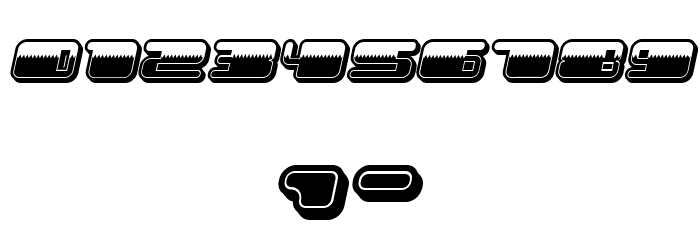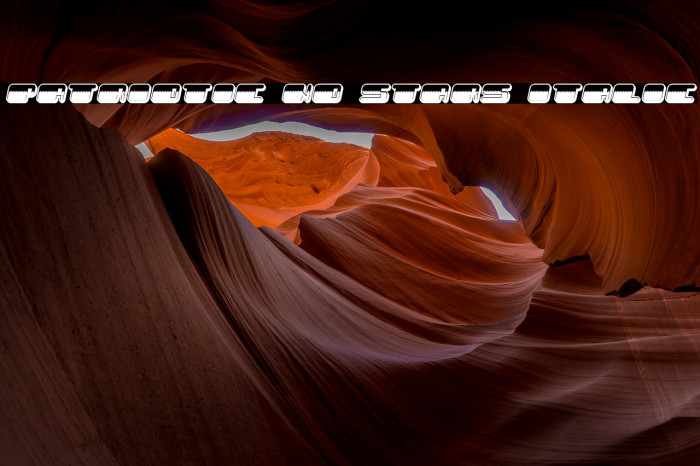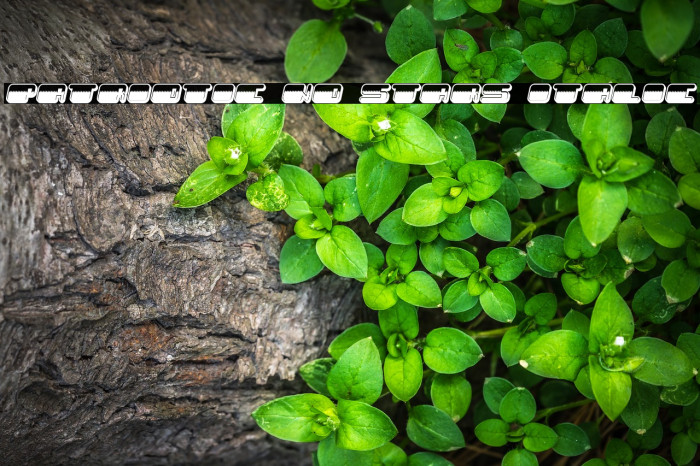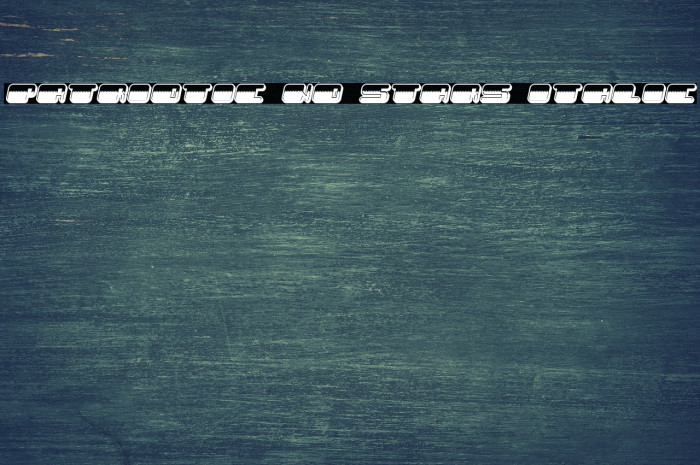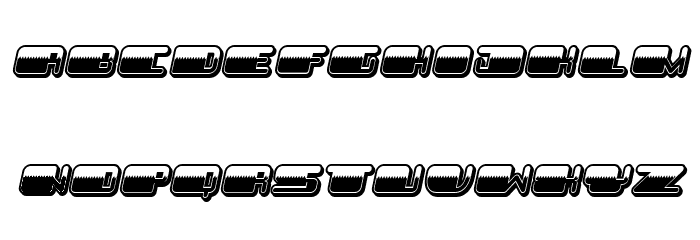
Patriotic No Stars Italic Font
Patriotic No Stars Italic Description
This font features a bold, decorative style with a unique, patriotic flair. The characters are outlined with a thick border, giving them a strong presence. The interior of each letter is filled with a series of horizontal lines, creating a textured appearance. The italic slant adds a dynamic and forward-moving energy to the text. The font is highly stylized, making it suitable for eye-catching designs. Its distinct look is perfect for projects that require a bold statement, such as posters, banners, or themed events. The numbers and special characters maintain the same decorative style, ensuring consistency across all text elements.